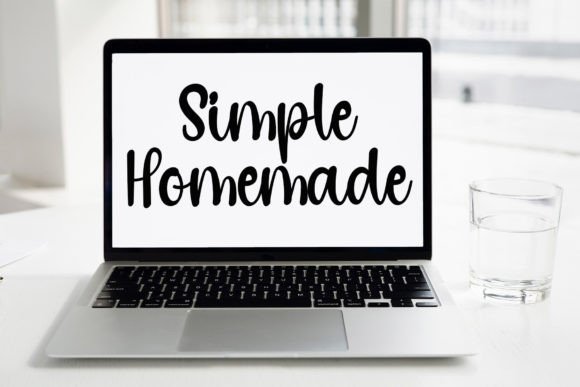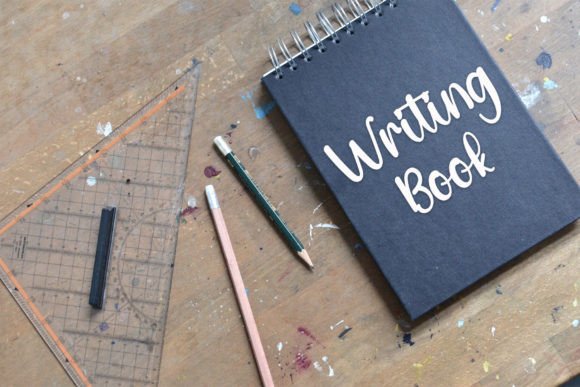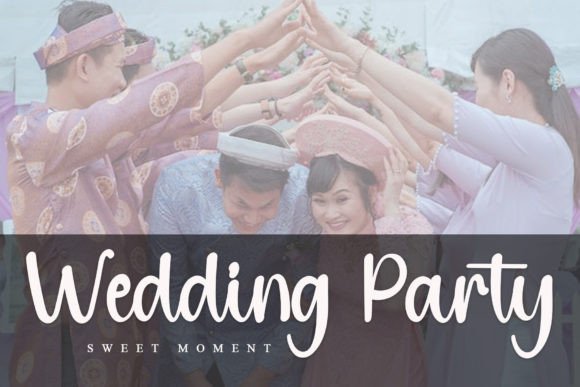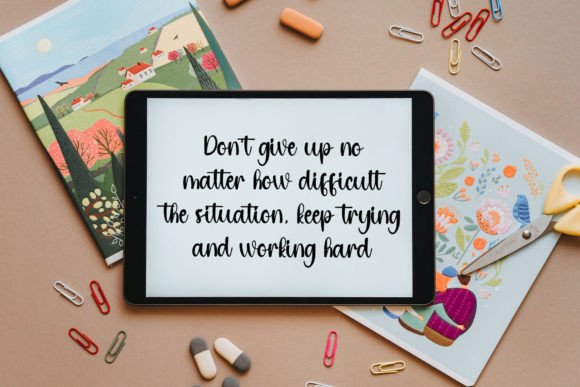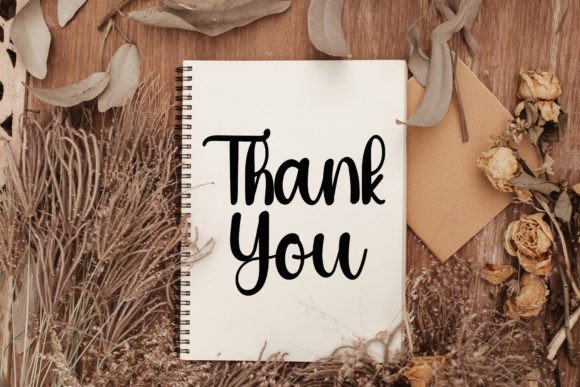
Introducing Friday Night Font: The Sweet and Friendly Handwritten Font
Are you tired of using the same old fonts in your designs? Look no further than Friday Night Font, a sweet and friendly handwritten font that’s perfect for adding a personal touch to your projects. With its natural and unique style, Friday Night Font is incredibly versatile and can be used in a wide range of designs, from DIY crafts to professional branding.
The Characteristics of Friday Night Font
So, what makes Friday Night Font so special? For starters, its handwritten style gives it a warm and approachable feel that’s perfect for designs that need a personal touch. The font’s natural and unique style also makes it stand out from more traditional fonts, adding a touch of whimsy and charm to any project.
One of the best things about Friday Night Font is its versatility. Whether you’re designing a logo, creating a social media graphic, or crafting a handmade card, this font is sure to fit the bill. Its friendly and approachable style makes it perfect for designs that need to connect with the viewer on a personal level.
The Benefits of Using Friday Night Font
So, why should you choose Friday Night Font for your next design project? For one, its unique style will help your designs stand out from the crowd. In a world where so many designs look the same, Friday Night Font offers a refreshing change of pace.
Another benefit of using Friday Night Font is its ease of use. This font is incredibly easy to read and understand, making it perfect for designs that need to communicate a message clearly and effectively. Whether you’re designing a poster, a flyer, or a social media graphic, Friday Night Font is a great choice.
In addition to its versatility and ease of use, Friday Night Font is also highly customizable. Whether you want to add a personal touch to your designs or create a unique brand identity, this font can be tailored to fit your needs.
How to Use Friday Night Font in Your Designs
So, how can you use Friday Night Font in your designs? The possibilities are endless! Here are a few ideas to get you started:
- Use Friday Night Font in your social media graphics to add a personal touch and connect with your audience.
- Create a handmade card or gift tag with Friday Night Font for a unique and special touch.
- Use Friday Night Font in your branding materials, such as logos and business cards, to create a friendly and approachable image.
- Add Friday Night Font to your website or blog to create a warm and welcoming atmosphere.
Tips and Tricks for Working with Friday Night Font
Here are a few tips and tricks to keep in mind when working with Friday Night Font:
- Use Friday Night Font in combination with other fonts to create a unique and eye-catching design.
- Don’t be afraid to get creative and try new things – Friday Night Font is a versatile font that can be used in a wide range of designs.
In conclusion, Friday Night Font is a sweet and friendly handwritten font that’s perfect for designers and crafters who want to add a personal touch to their projects. With its natural and unique style, Friday Night Font is incredibly versatile and can be used in a wide range of designs. Whether you’re creating a social media graphic, a handmade card, or a professional branding campaign, Friday Night Font is a great choice. So why not give it a try and see what amazing designs you can create?